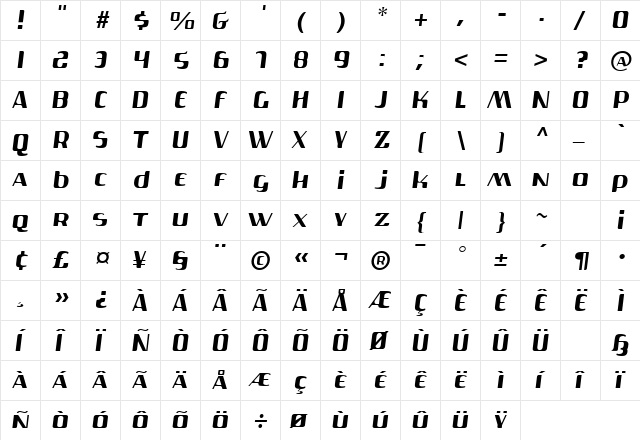
Gas Lite Regular
Design Context for Gas Lite Typeface
Gas Lite takes a measured approach to typography — its balanced proportions and neutral character make it a reliable workhorse for both digital and print work.
Pro Tip: Use Gas Lite in both headline and body roles to test its range before committing to a single application.